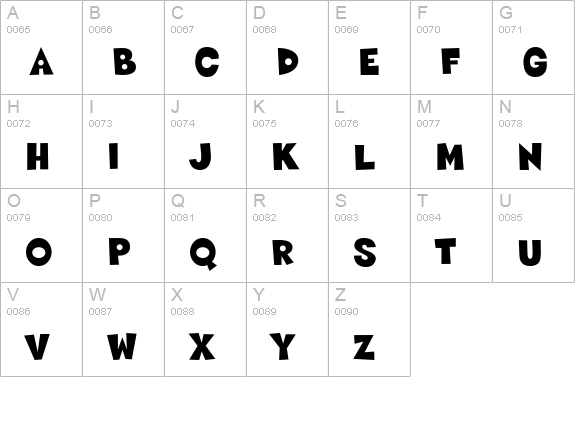
Sneakerhead BTN Font Details
Introducing Sneakerhead BTN, a font that perfectly captures the essence of sneaker culture and street style. With its bold and dynamic letterforms, this font is sure to make a statement in any design project. Sneakerhead BTN is the epitome of urban cool, embodying the passion and obsession of sneaker enthusiasts around the world. Its sleek and modern design reflects the sleek lines and futuristic elements found in the world of sneakers. This font is not only visually appealing but also highly versatile. Whether you're working on a logo, poster, or social media graphics, Sneakerhead BTN will add a touch of urban flair and sophistication to your design. But what makes Sneakerhead BTN truly exceptional is that it is freely available to download at FontsMarket.com. Yes, you read that right – completely free! Now you can embrace the sneakerhead culture without breaking the bank. So, what are you waiting for? Get your hands on Sneakerhead BTN and take your design projects to the next level. Whether you're a sneaker enthusiast, designer, or simply someone who appreciates cutting-edge typography, this font is a must-have in your collection. Don't miss out on the opportunity to freely express your love for sneakers through your designs. Download Sneakerhead BTN now and let your creativity soar!